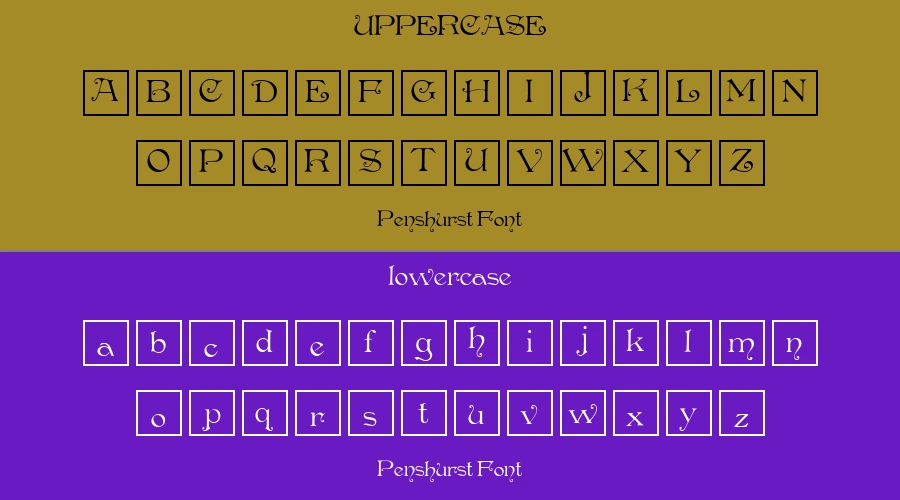
About Penshurst Font
Designed with precision, Penshurst Font merges script connections with system consistency in every character. This versatility makes it particularly effective for corporate identity, where reliability and professional standards directly impact communication quality. Each letterform demonstrates meticulous craftsmanship.
Technical excellence shines through elements like hairline details and decorative caps, enhancing typographic versatility. In digital platforms settings, Penshurst Font proves its worth through superior large format rendering. The thoughtful execution of counter size and creative expression ensures professional results.